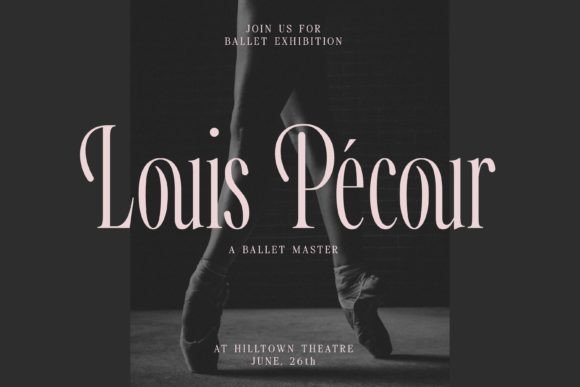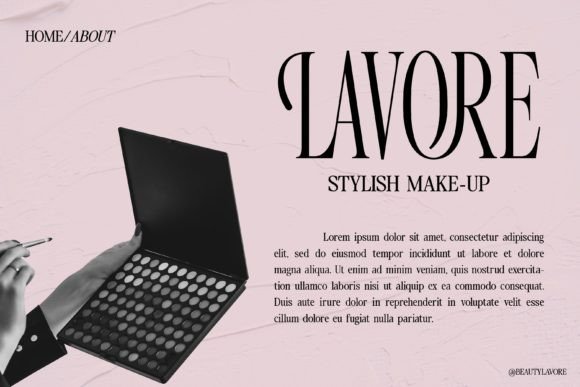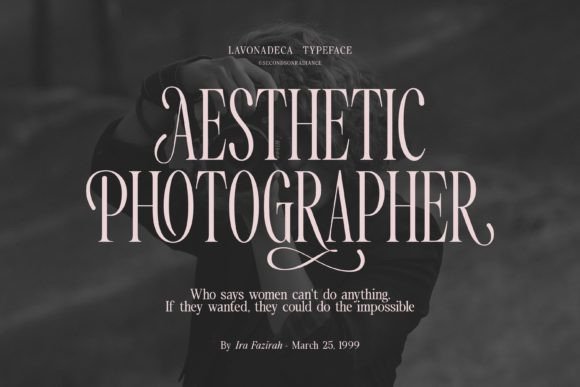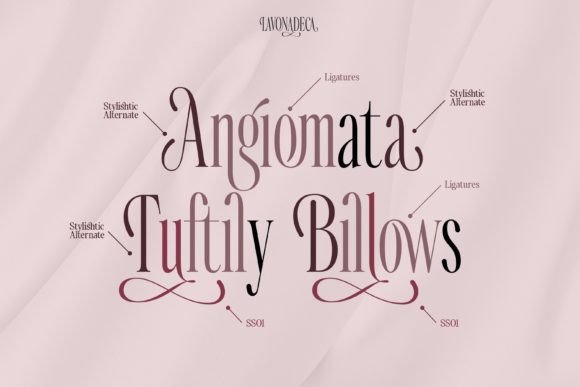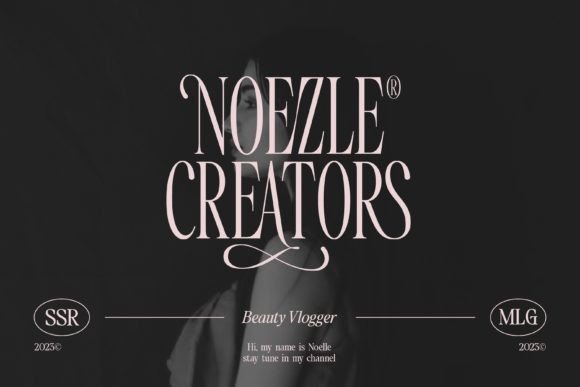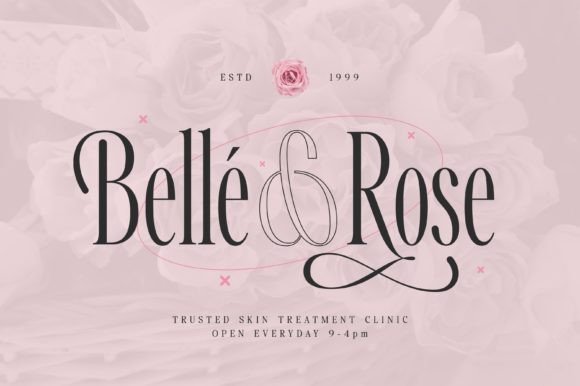
Introduction to Lavonadeca Font
Lavonadeca is a sophisticated, charming serif font with a fashionable touch, comes with a lot of ligatures and alternate for you to mix and match.
Specially designed for luxury, elegant, feminine projects, this font is perfectly suitable for creating modern, chic designs .
Key Features of Lavonadeca Font